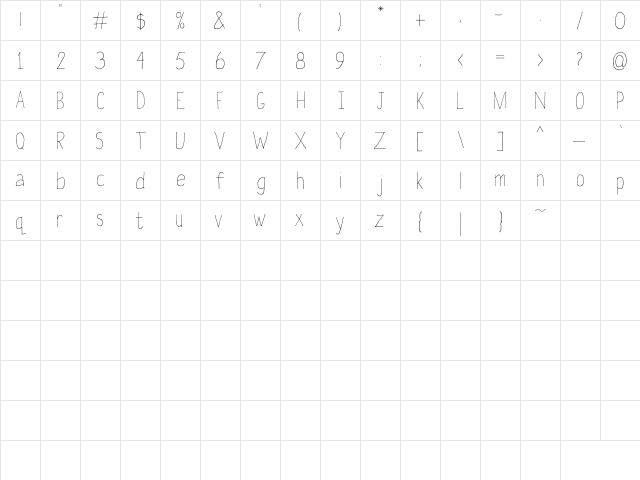
Later On Regular
Later On takes a measured approach to typography — its balanced proportions and neutral character make it a reliable workhorse for both digital and print work.